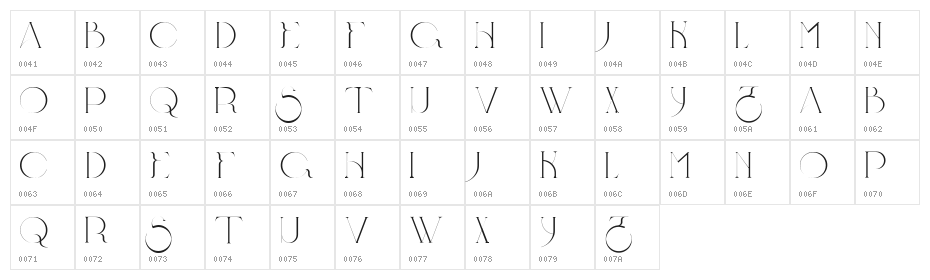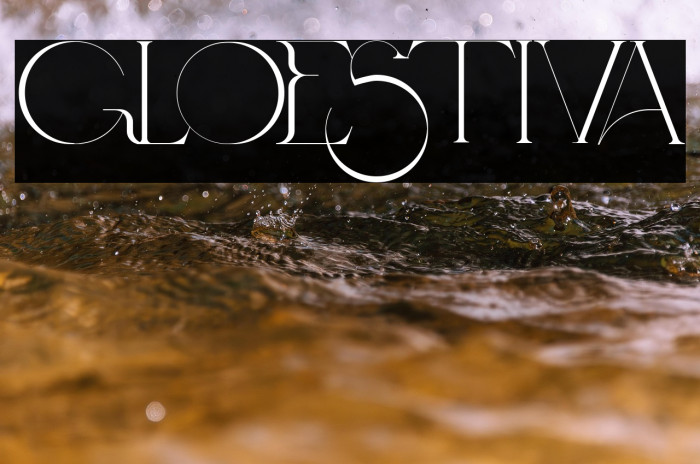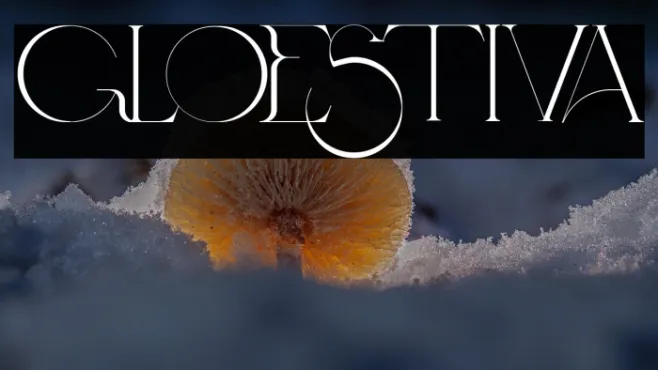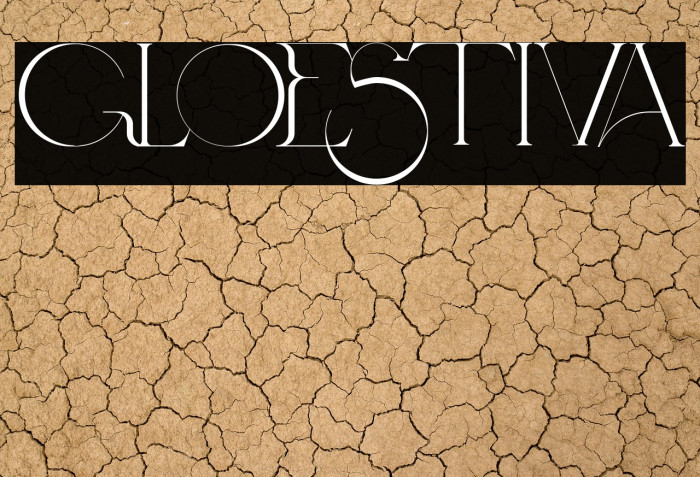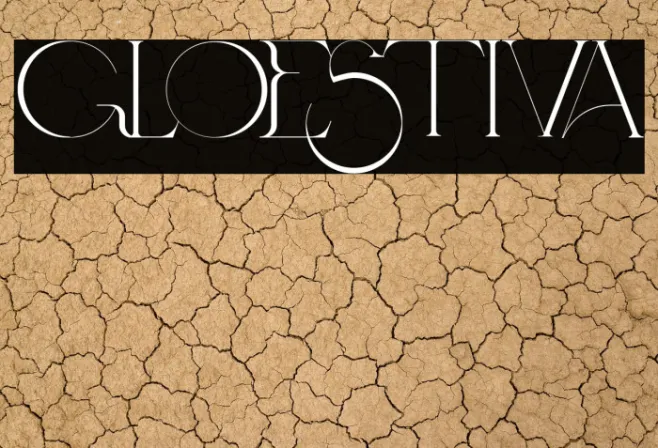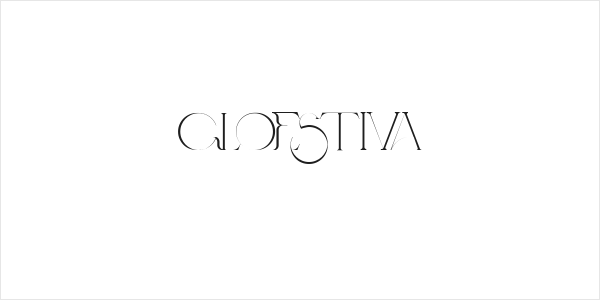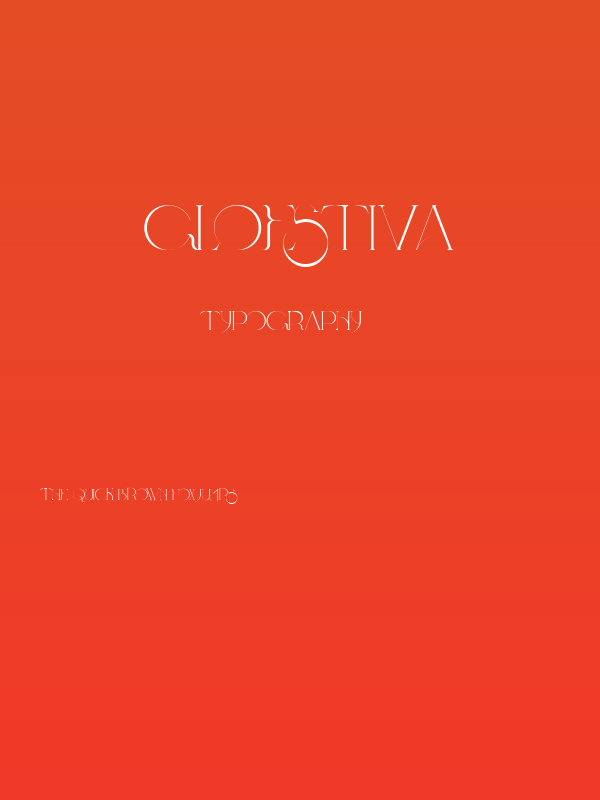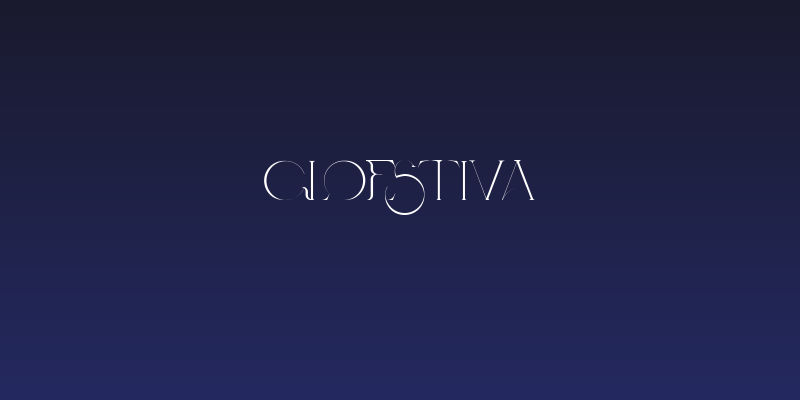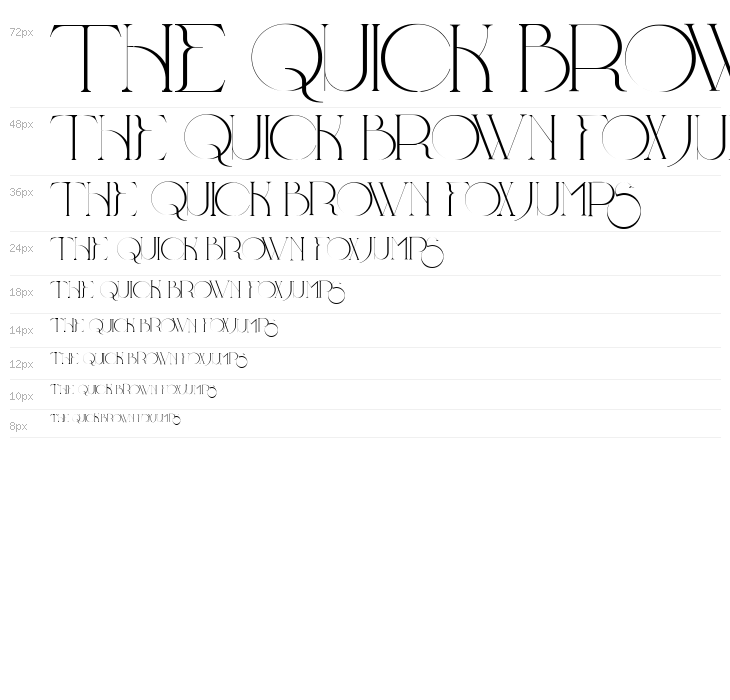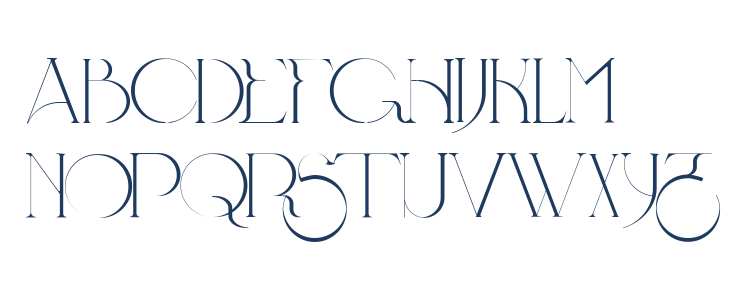
Gloestiva Font
Gloestiva Description
This font exhibits a unique and artistic design, characterized by its elegant and flowing lines. The letters are crafted with a modern flair, featuring a combination of sharp angles and smooth curves. The uppercase letters are particularly striking, with some characters incorporating unexpected twists and extensions that add a sense of movement and dynamism. The lowercase letters maintain a consistent style, complementing the uppercase with their refined and sophisticated appearance. The numbers and special characters are designed to match the overall aesthetic, ensuring a cohesive look across all text elements. This font's distinctive style makes it ideal for creative and high-impact designs.